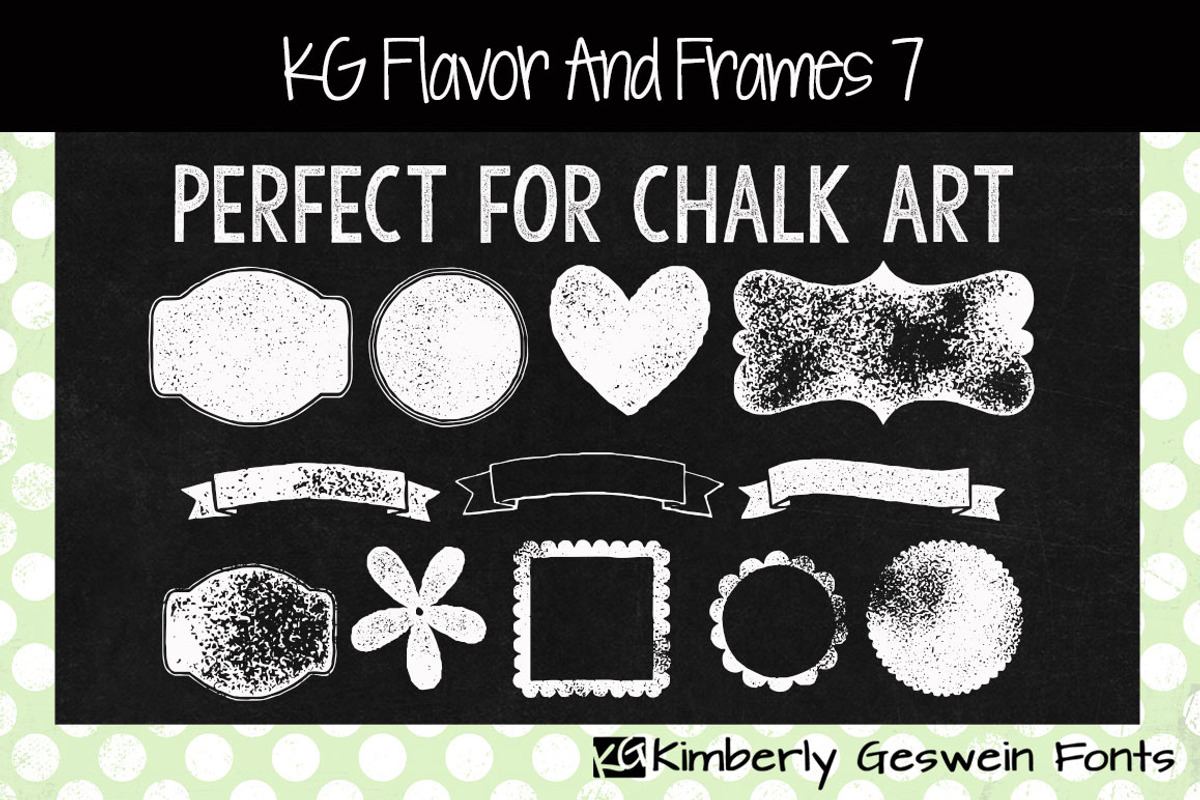
Please note, to use this font for commercial purposes, you must purchase the full version. KG Flavor And Frames Seven is a stylish and versatile font that combines bold, modern letterforms with elegant frames and decorative elements. Perfect for branding, invitations, logos, and more, this font adds a creative and professional touch to your designs. Whether you’re working on a chic event invitation or a trendy logo, KG Flavor And Frames Seven gives your work a unique and polished appearance. Test it out and enjoy free download access for personal use. Explore the charm and creativity of KG Flavor And Frames Seven Font Free Download before purchasing the commercial license. Enhance your projects with this beautifully crafted font.